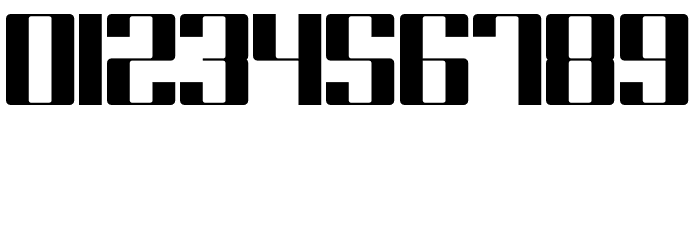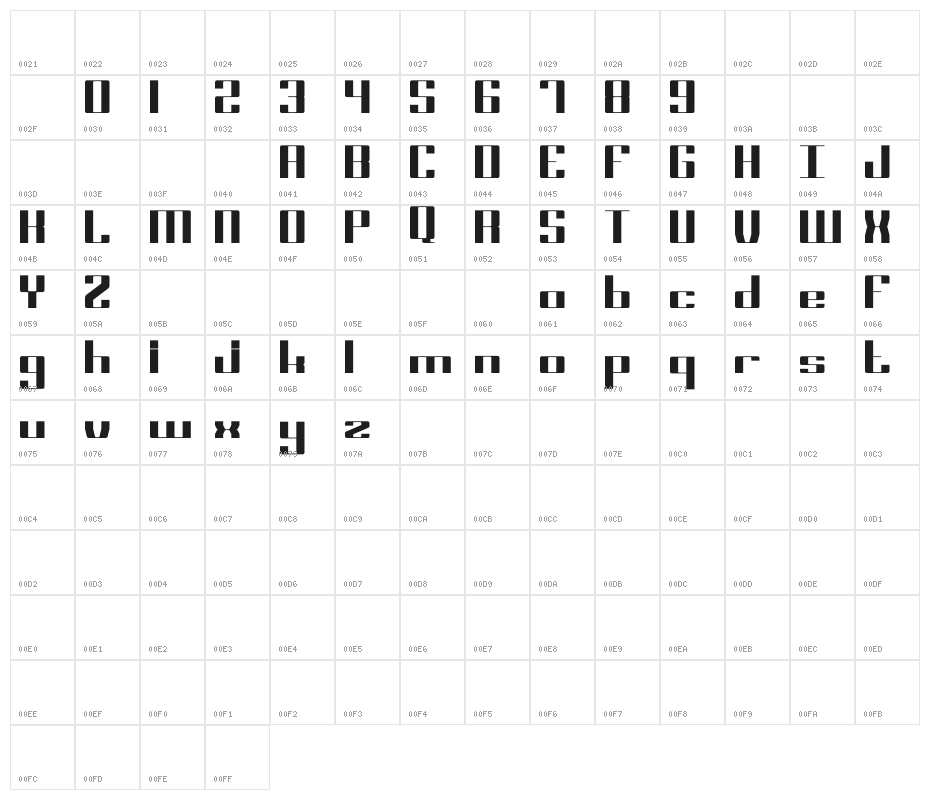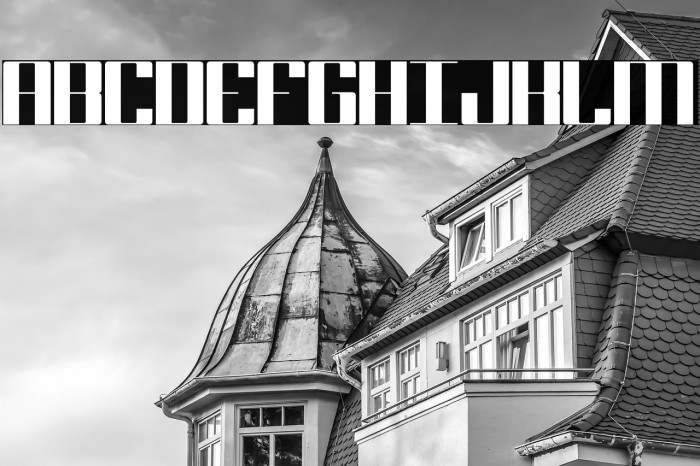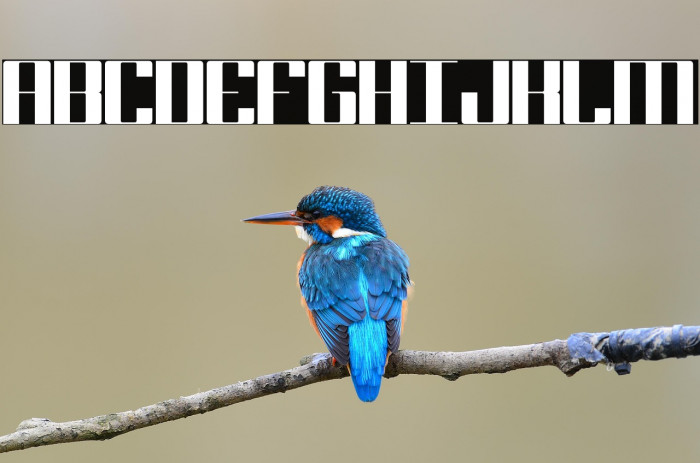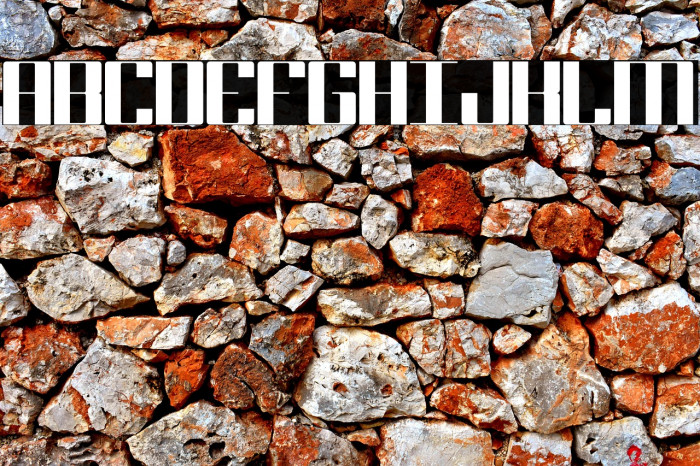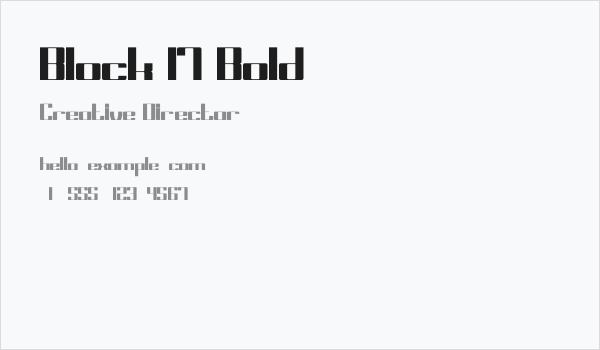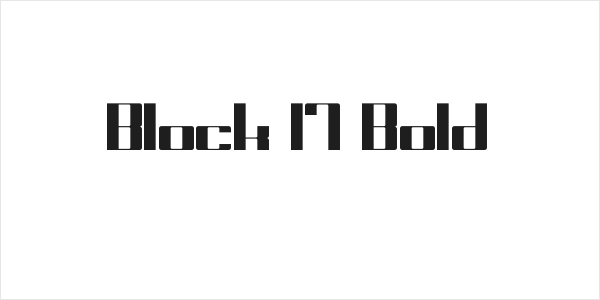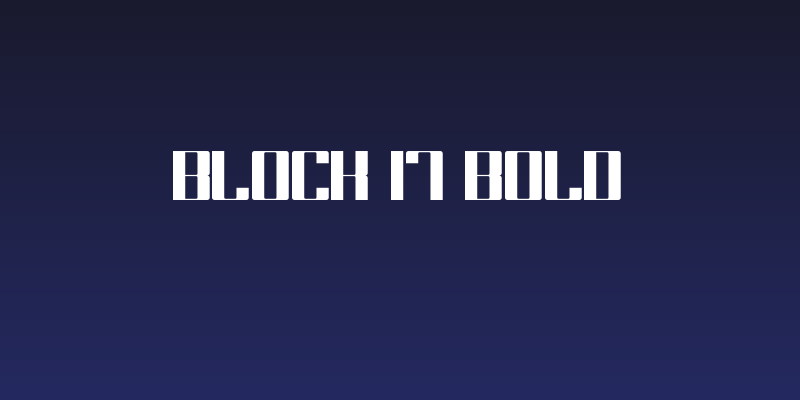
Block 17 Bold Font
Block 17 Bold Description
This font features a bold, geometric design with a strong presence. The characters are constructed with a blocky, angular style that gives a modern and industrial feel. The uppercase letters are tall and imposing, while the lowercase letters maintain the same boldness with slightly more rounded edges. The numbers are consistent with the overall style, offering a uniform appearance across all characters. The special characters are designed to match the bold and structured aesthetic, making them suitable for impactful designs. The font's high contrast in stroke thickness adds to its striking appearance, making it ideal for attention-grabbing headlines and logos.
| Proposed Projects | Ideal for branding, posters, headlines, and any design requiring a strong, modern aesthetic. |